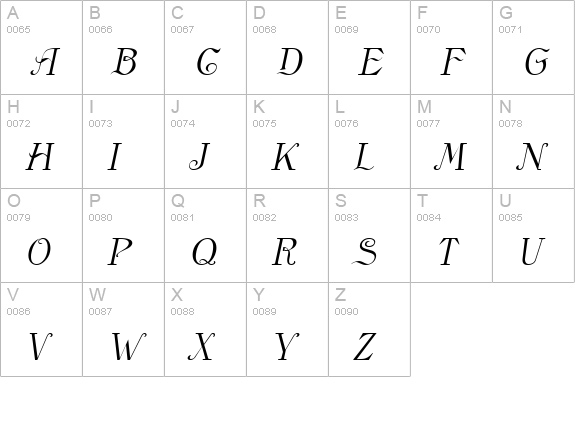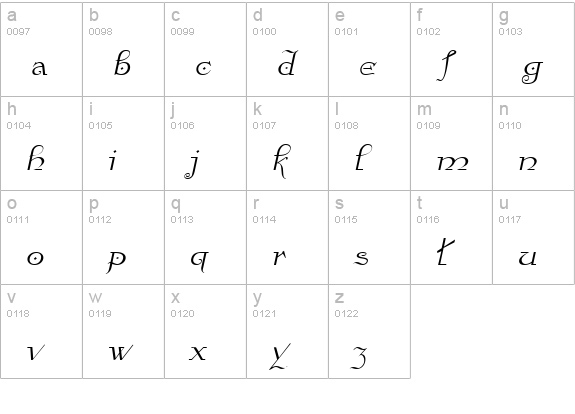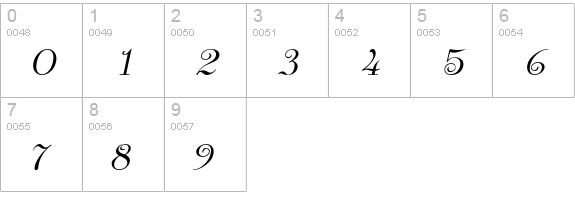
Anglican Italic Font Details
Anglican Italic is a distinctive, italic variant in the Anglican typeface family \xE2\x80\x94 well suited to design and typography projects.
Anglican Italic font is a timeless and elegant typeface that exudes sophistication and grace. Its slanted and flowing design adds a touch of formality to any text while maintaining readability and elegance. The subtle curves and delicate strokes of Anglican Italic make it a popular choice for projects that require a touch of class. Best of all, Anglican Italic font is available for free download at FontsMarket.com. This means you can effortlessly enhance your designs with this beautiful font without any cost. Whether you're working on invitations, branding materials, or any other project that calls for a touch of refinement, Anglican Italic font is sure to elevate your work to the next level. Download it today and add a touch of sophistication to your designs.